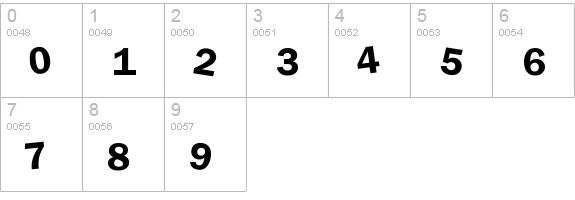
DdaftT-lowercase Font Details
DdaftT-lowercase font is a modern and sleek typeface that exudes elegance and sophistication. Perfect for adding a touch of style to any design project, this font features clean lines and a contemporary aesthetic. With its lowercase letters designed to perfection, DdaftT-lowercase font is sure to make a statement. Best of all, this font is available for free download at FontsMarket.com, making it easily accessible for all designers looking to elevate their work with a touch of class and flair. Don't miss out on the opportunity to enhance your designs with this stunning font - download DdaftT-lowercase today!